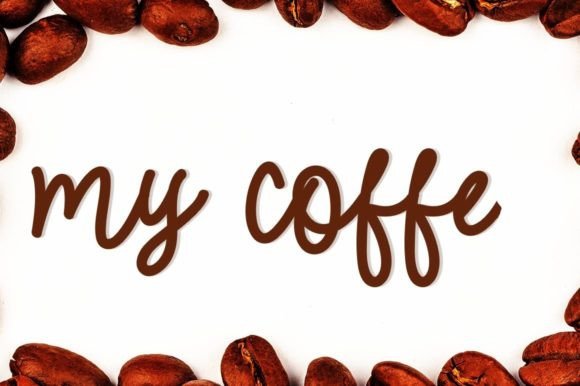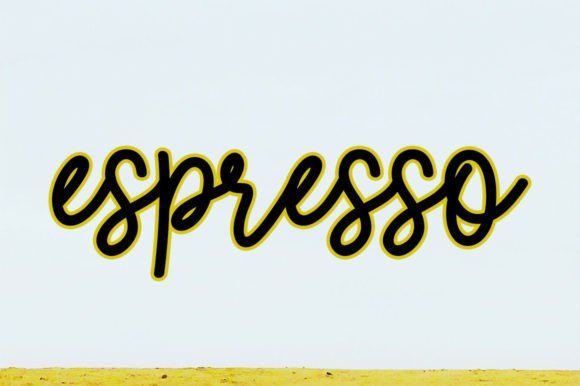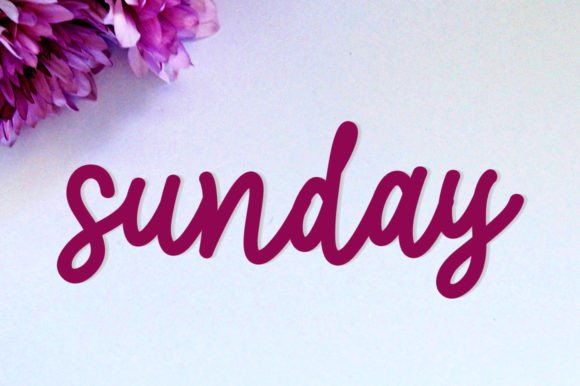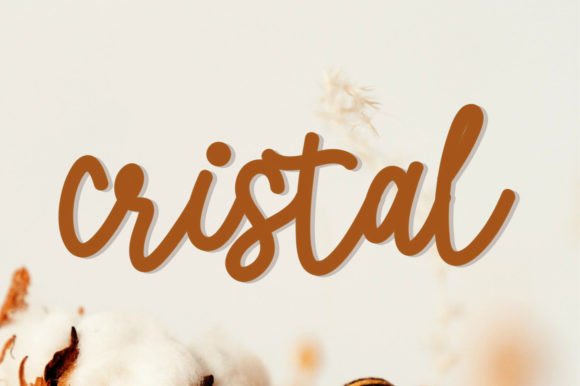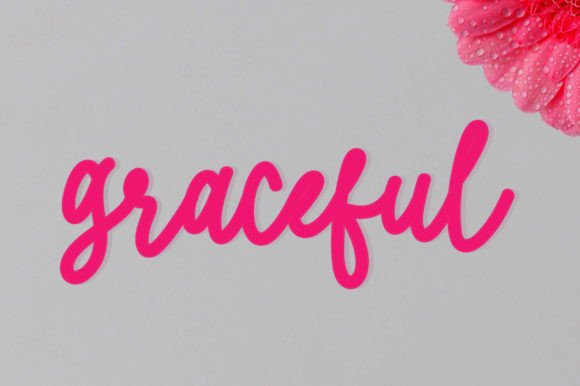
About My Coffe Font
My Coffe is a casual and friendly handwritten font that brings a relaxed and approachable vibe to your projects. With its casual charm, this font is a versatile choice for various creative applications. Add My Coffe confidently to your designs, and you’re sure to love the results!
The casual and friendly nature of My Coffe makes it suitable for a wide range of projects, from informal notes to social media graphics and more. Whether you’re creating a laid-back brand identity or adding a personal touch to your designs, My Coffe is designed to complement your creative endeavors.
Imagine My Coffe enhancing your designs, whether it’s on cozy coffee shop signage, friendly social media posts, or any project that requires a touch of approachability. The font becomes a key element that not only adds a casual handwritten aesthetic but also infuses a sense of warmth and friendliness into your creations.
In summary, My Coffe is more than just a font; it’s a design asset that brings a casual and friendly quality to your projects. Embrace its easygoing style confidently, and let My Coffe be the typeface that adds a delightful touch to your various creative endeavors.